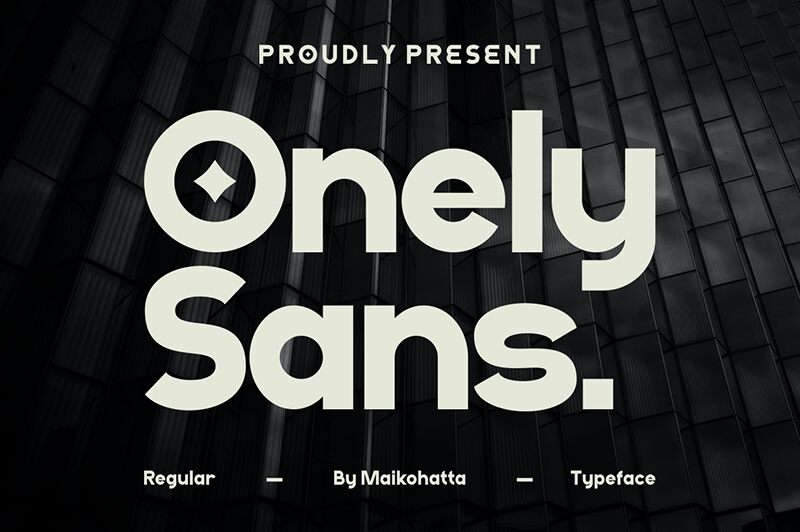
Onely Sans
Onely Sans font designed by Gilang Ternadho is a clean sans serif typeface with characters created from simple geometric shapes. The friendly modern setting makes for an appealing approachable look that suits multiple professional applications. Every letter is neat and legible and helps the content stand out in most of the intended usages.
This free versatile font works impeccably for branding, packaging, posters, book covers, menus, magazine layouts, flyers, labels, logos, shirts engraving design projects. It fits almost everything related to visual advertising and communication across many platforms especially both printed tools and digital ones.